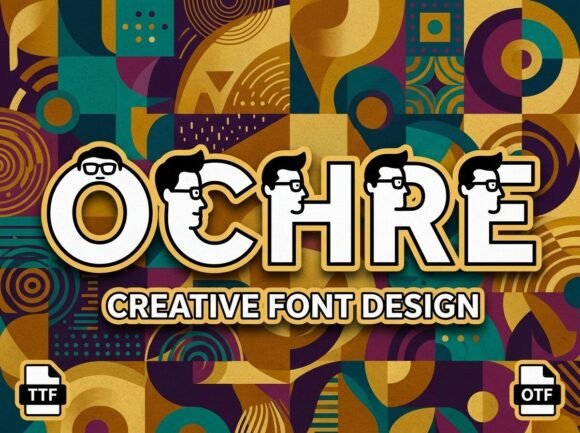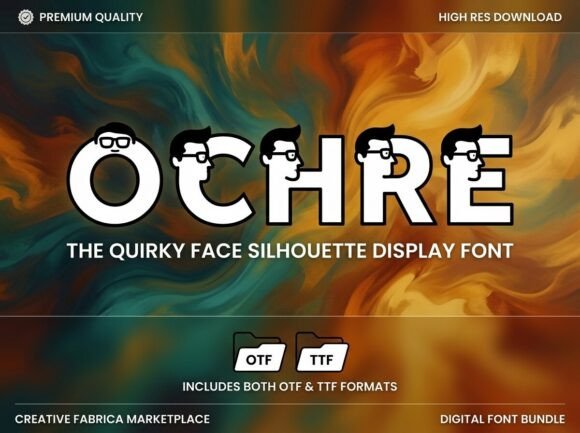
Introduction to Ochre Font
Do you remember that moment when you stumbled upon the perfect font for your creative project? The one that instantly spoke to your vision, elevating your design to new heights? For many designers, that moment is about to arrive with the introduction of the Ochre Font, a game-changing display typeface that’s as witty as it is sophisticated.
With its bold, sans-serif letterforms and hand-drawn side-profile silhouettes, Ochre Font is a design resource that’s hard to ignore. Its heavy graphic weight and intellectual personality make it the perfect choice for independent bookstore branding, creative agency logos, and cultural podcast headers. Whether you’re looking for a free download or a high-quality font to elevate your design, Ochre Font is an invaluable asset for designers who crave unique and eye-catching typography.
Key Features of Ochre Font
- Designed with a unique, hand-painted aesthetic for added visual interest
- Perfect design resource for artists, designers, and writers looking for a distinctive font
Honest Review: Ochre Font
As a designer, I’m always on the lookout for high-quality fonts that can elevate my creative project. I recently stumbled upon the Ochre Font, and I’m excited to share my honest review with you.
What works well: ✨ The Ochre Font has a unique, hand-drawn aesthetic that adds a touch of warmth and personality to any design. The font is also highly legible, making it perfect for body text. Additionally, the font is available for free download, which is a major plus for designers on a budget.
- High-quality design: The Ochre Font is a great example of a well-designed font that’s both visually appealing and functional.
Limitations: ⚠️ While the Ochre Font is a great addition to any design library, it may not be suitable for formal or corporate designs, as it has a more casual, creative feel.
Overall impression: I’m really impressed with the Ochre Font, and I think it’s a great resource for designers who are looking for a high-quality, unique font for their creative projects. With its transparent background and free download option, it’s a great choice for designers of all levels.
The Ochre Font is commonly used in a variety of design projects, including branding, packaging, and digital art. Its unique style and versatility make it a popular choice among designers.
Use Montserrat for projects that require a bold and urban feel. Compared to Ochre Font, Montserrat is more geometric and lacks the warm, earthy tone of Ochre.